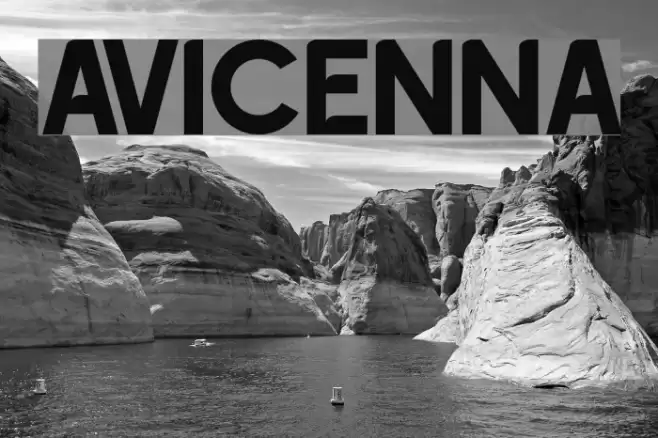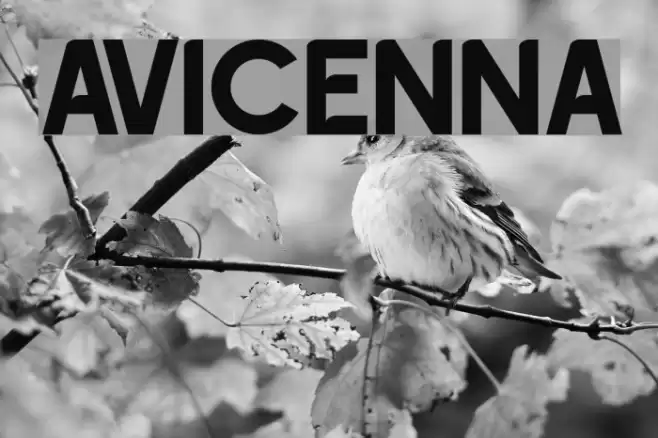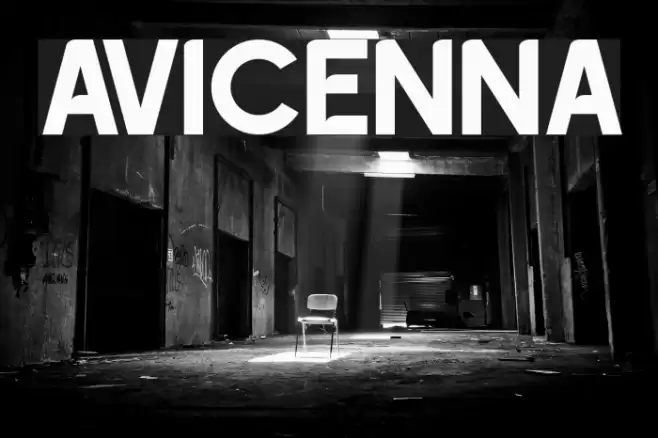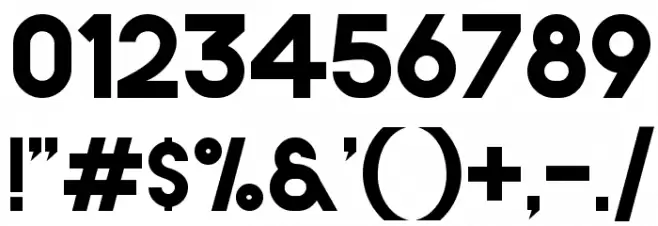
AVICENNA Font
AVICENNA Description
This font features a bold and modern sans-serif style with clean, geometric lines. The characters are uniformly thick, providing a strong and impactful appearance. The uppercase letters are particularly striking with their consistent height and width, while the lowercase letters maintain a similar design ethos, ensuring readability and uniformity. The numerals are clear and distinct, matching the boldness of the alphabet. Special characters are designed with the same attention to detail, making them easily recognizable and aesthetically pleasing. Overall, this font is ideal for making a statement with its bold presence.
A bold, modern sans-serif font with geometric lines and uniform thickness from Uncategorized fonts.
- Proposed Projects: Ideal for branding, headlines, posters, and any project requiring a strong visual impact.